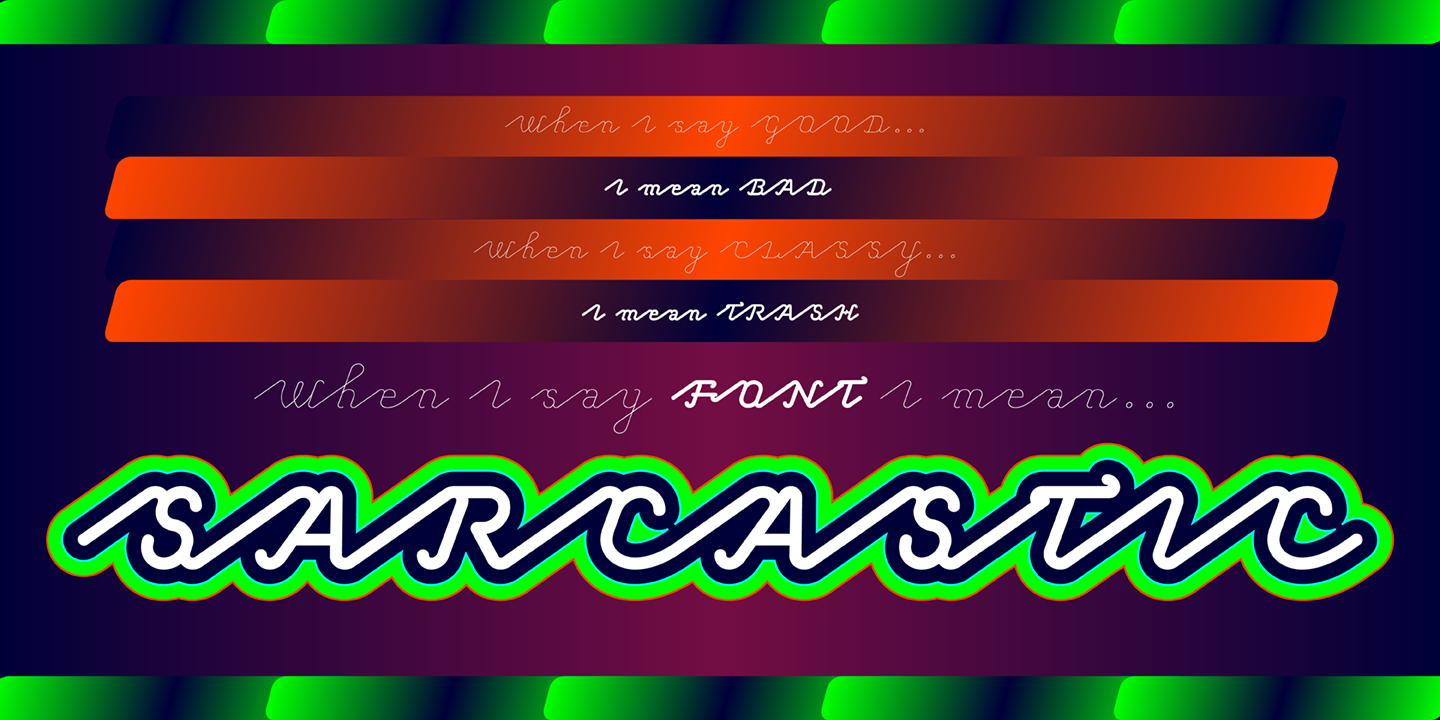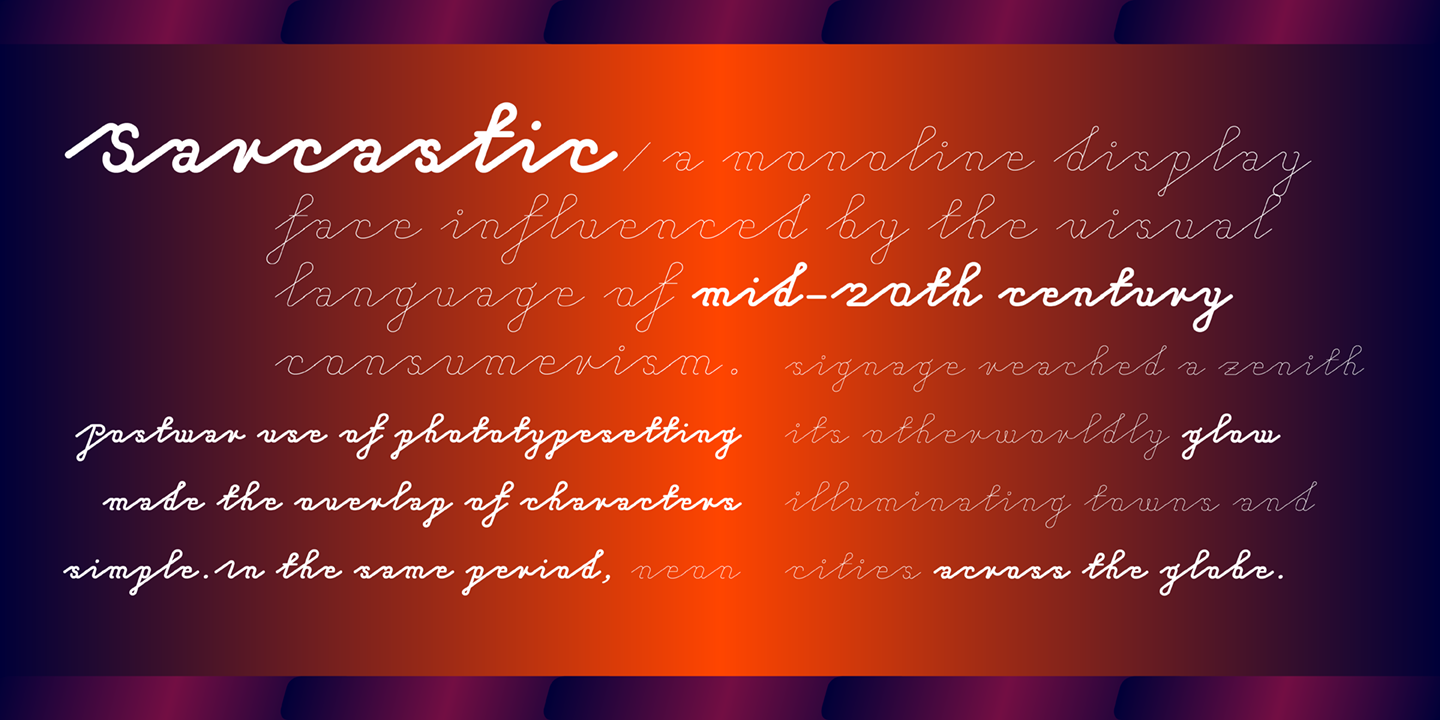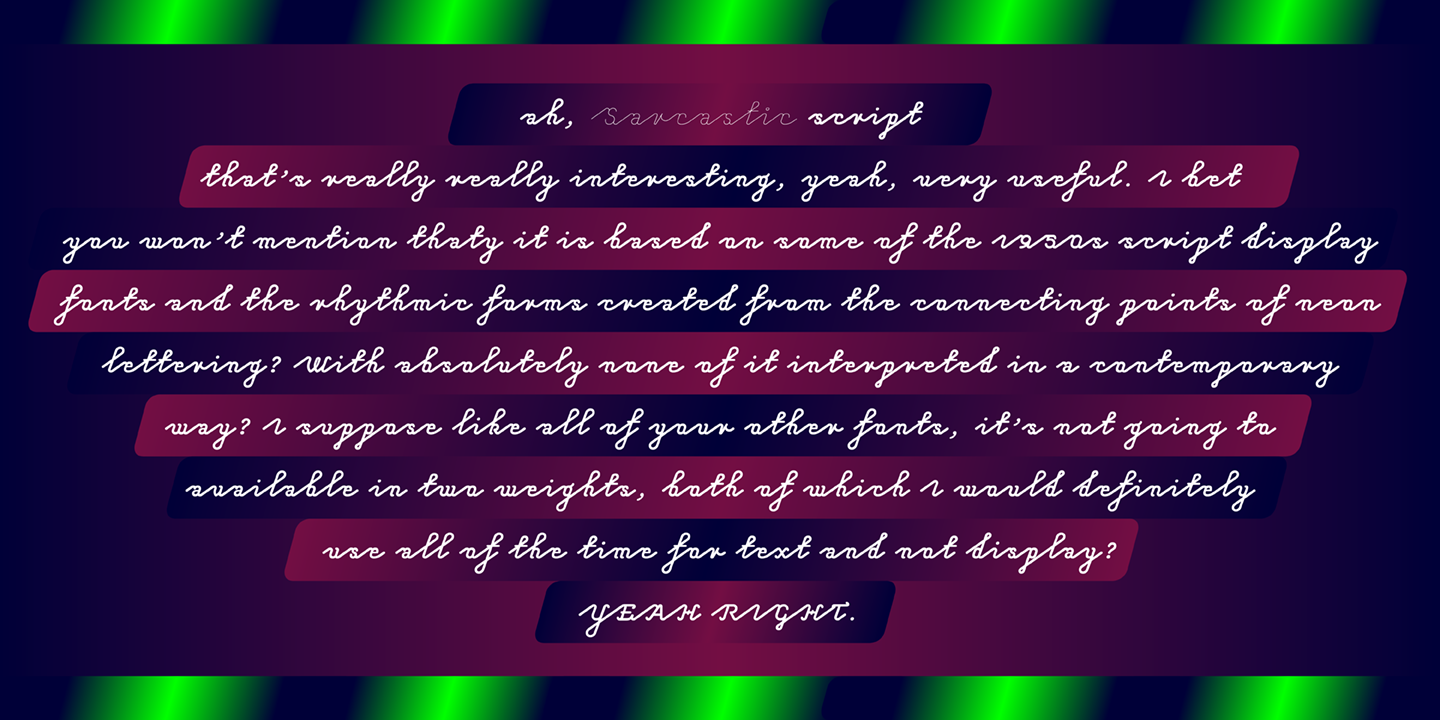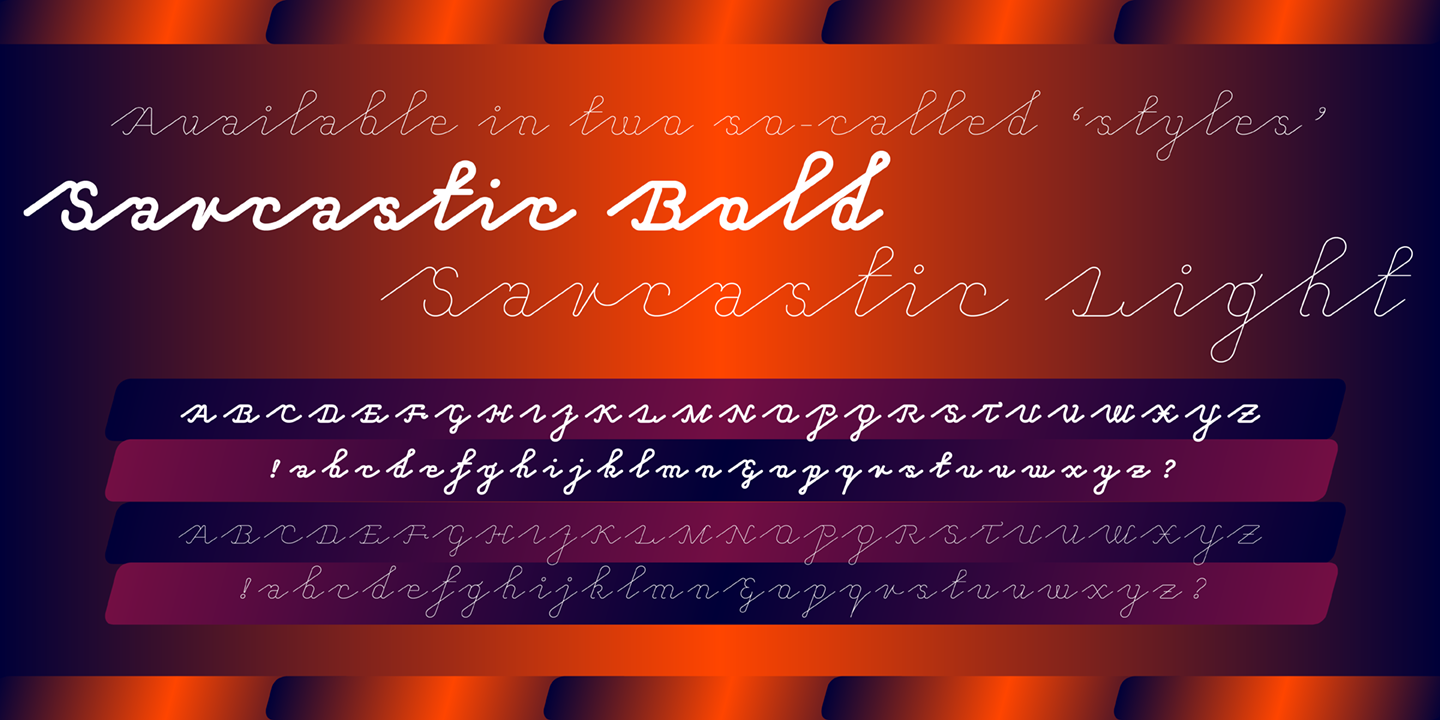
In the early-1950s, in the heart of the postwar economic boom, emerging technology gave rise to a new consumer language. Development of phototypesetting made the overlap of characters simple and the use of script typefaces mushroomed at this time. In the same period, use of neon signage reached a zenith in the free world, its otherworldly glow illuminating towns and cities across the globe.
The name Sarcastic is derived from the duality of meaning inherent in script typefaces – text appears to be elegant and easy-reading yet also ironic in tone.